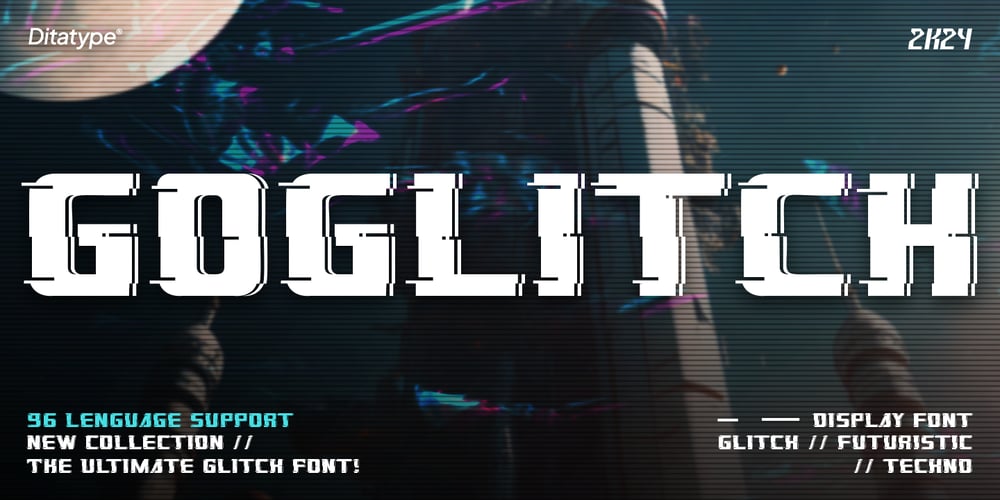
Goglitch Font Family was designed by Donis Miftahudin and published by Ditatype. Goglitch contains 1 styles and family package options. Introducing Goglitch – a bold, futuristic display font that commands attention. Designed in all caps, Goglitch features a strikingly bold weight that enhances its modern, high-tech aesthetic. Its futuristic style, characterized by sharp angles and innovative design elements, makes it perfect for sci-fi themed designs. Goglitch adds a bold, forward-thinking flair to your creative endeavors. In addition, enjoy the features here.Features: Multilingual Supports PUA Encoded Numerals and Punctuations Goglitch fits in logos, posters, flyers, branding materials, print media, editorial layouts, and many more designs. Find out more ways to use this font by taking a look at the font preview.Thanks for purchasing our fonts. Hopefully, you have a great time using our font. Feel free to contact us anytime for further information or when you have trouble with the font. Thanks a lot and happy designing.